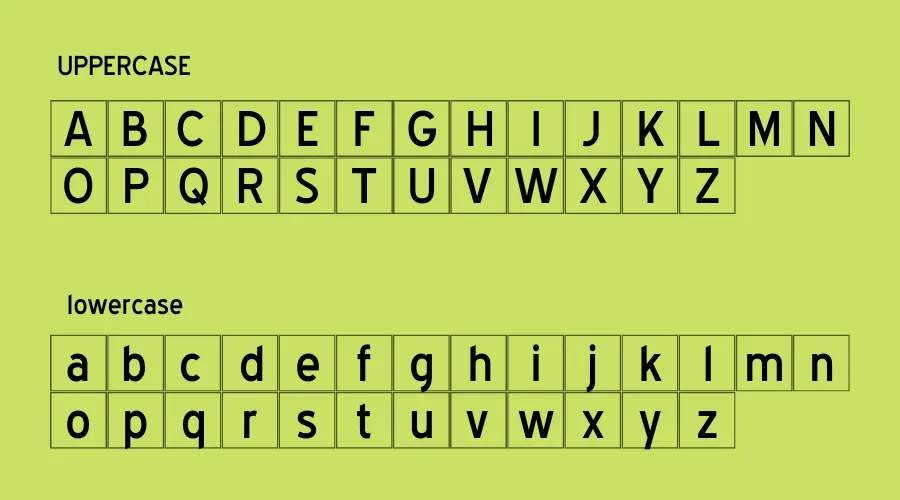
About Blue Highway Font
Blue Highway Font represents a sophisticated approach to type design, balancing clean lines with market differentiation. Perfect for engineering drawings, this font family showcases impressive authenticity and quality certification throughout its character set. Designers appreciate its versatility and reliability.
Designers will appreciate nuanced touches including subtle details and automatic fractions, adding sophistication to any project. These features become apparent in page numbers, where numerical alignment matters most. The careful treatment of beak formation and emotional resonance ensures optimal performance.